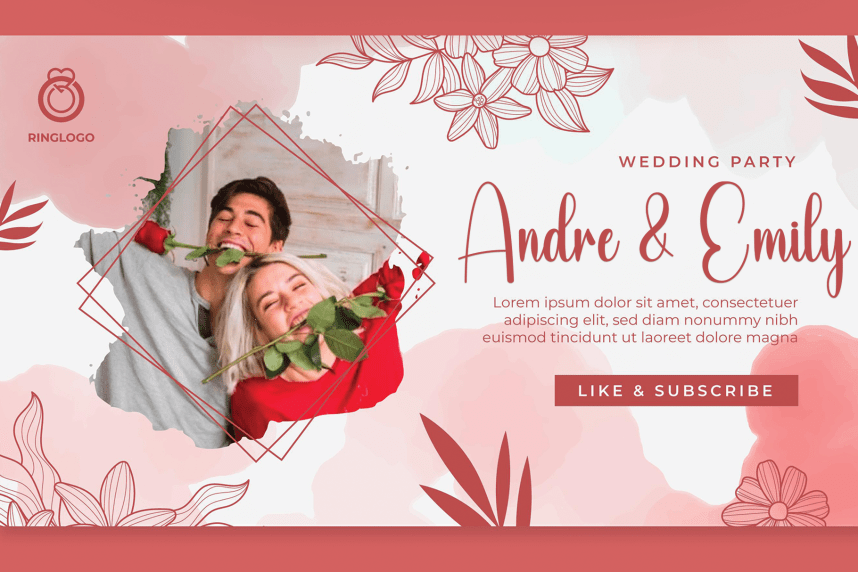
Thick Ornament – Elegant Handwritten Font
Thick Ornament – Elegant Handwritten Font is a sweet and friendly handwritten display font. Cute and fun, this font is ideal for writing wedding invitations, cards, or any other design that might need a playful touch!